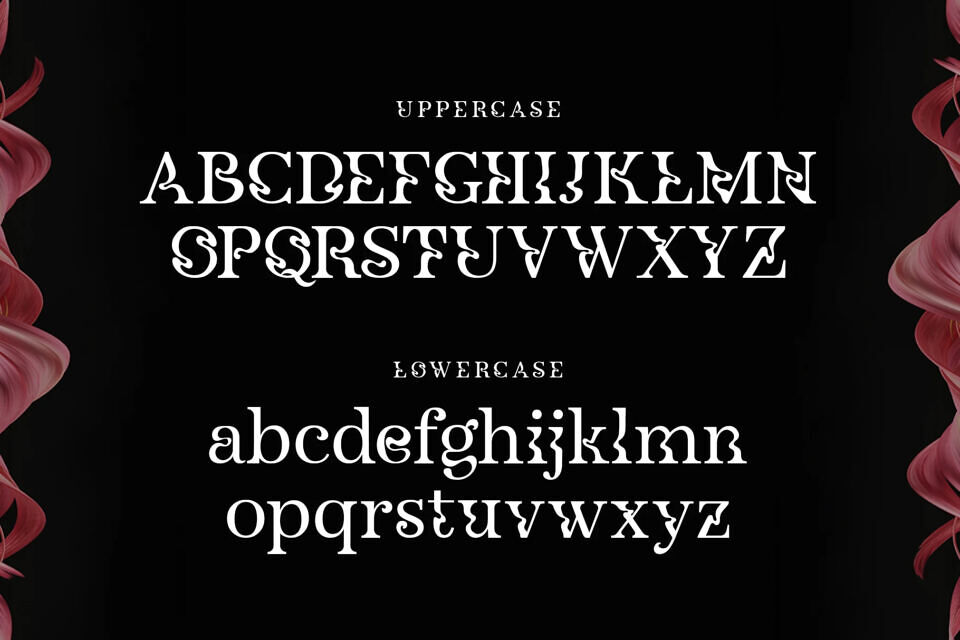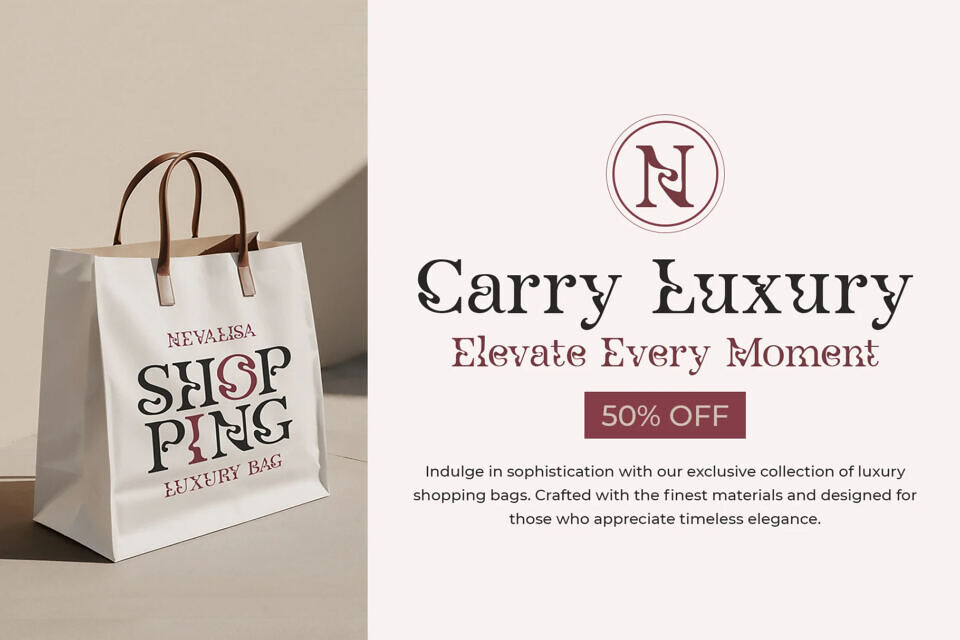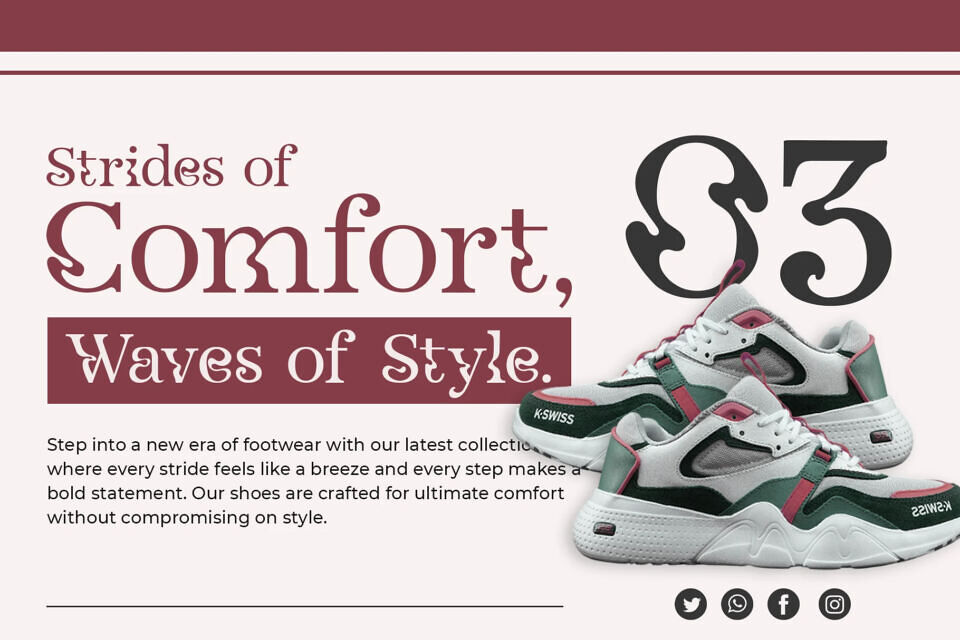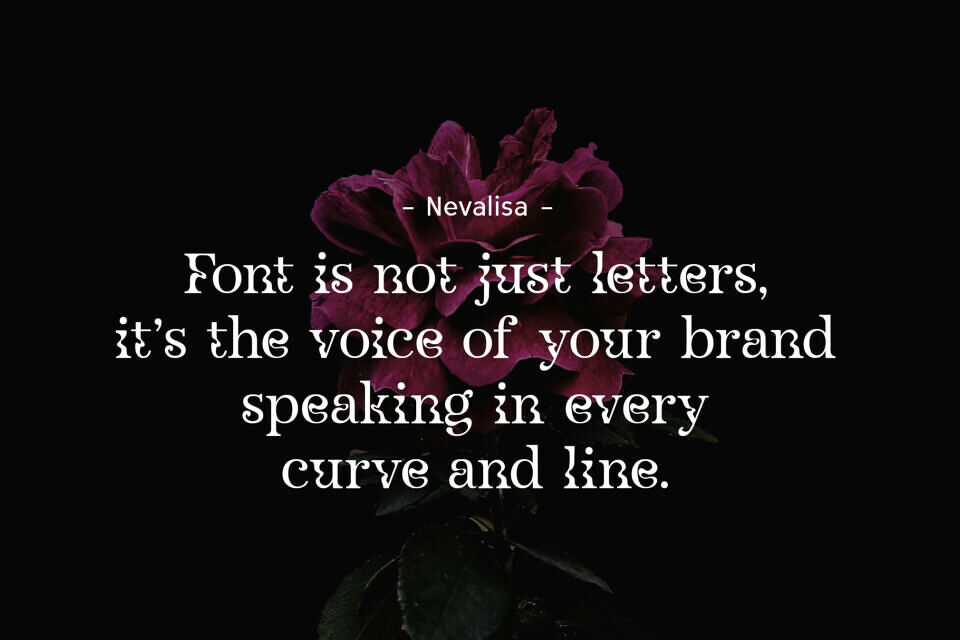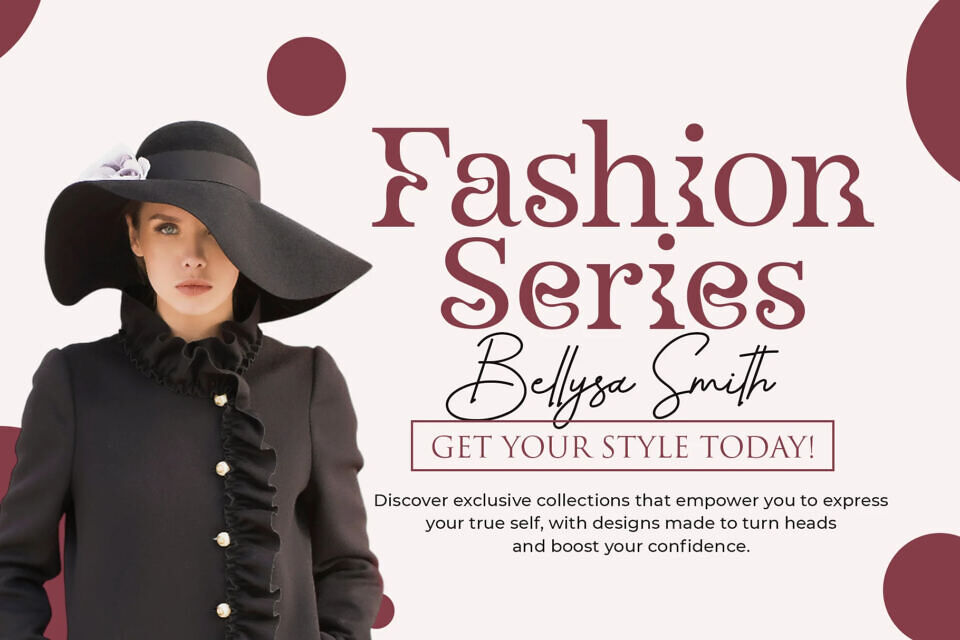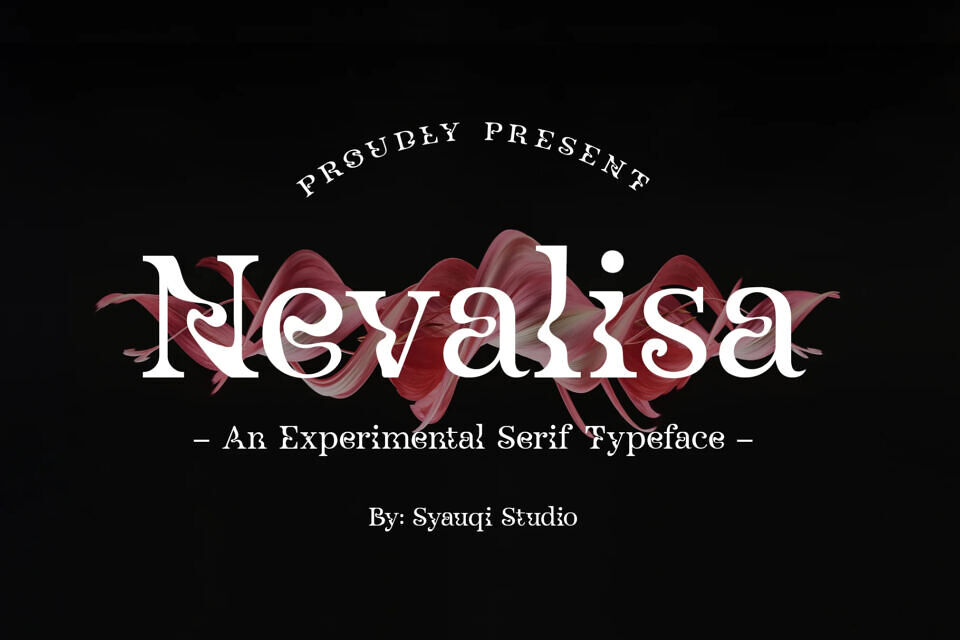
Nevalisa Font
Nevalisa is not just a font, it’s a statement. This Experimental Serif font pushes the boundaries of traditional typography, dynamic serifs with elegant, refined letterforms. With its distinctive, avant-garde style, Nevalisa captivates attention and evokes creativity at first glance.
Perfect for designers seeking to break free from the conventional, Nevalisa’s unique character and flair will elevate your branding, editorial designs, and projects that demand an artistic touch.